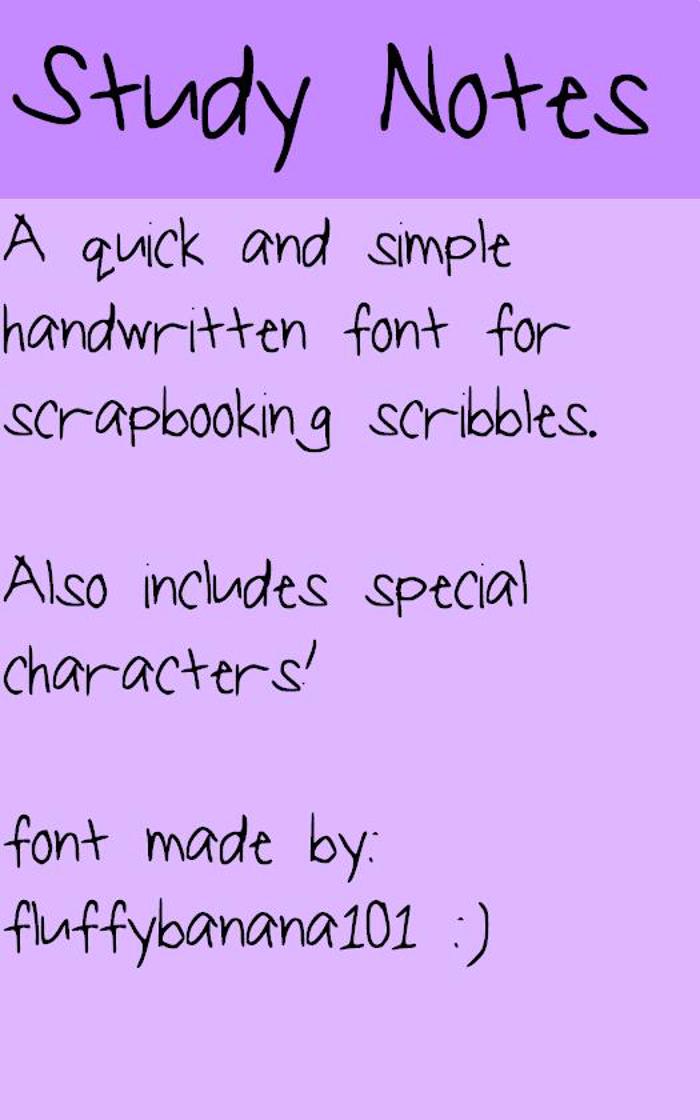
StudyNotes Font
Ever had a lazy day at school? Wanna make study notes? Why not write them on Study Notes?! A quick font made on Windows 8.
7 years agoreally pretty font, reminds me of my own handwriting
My favorite font, I use it all the time. 😄